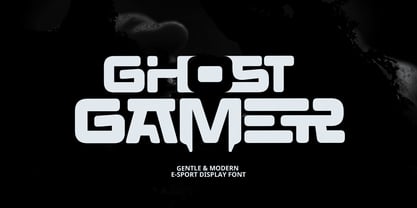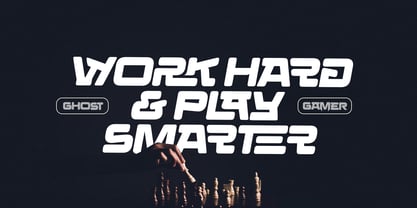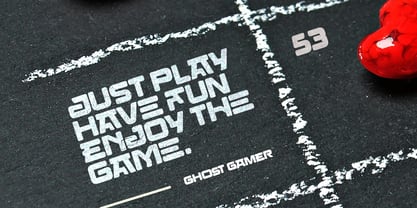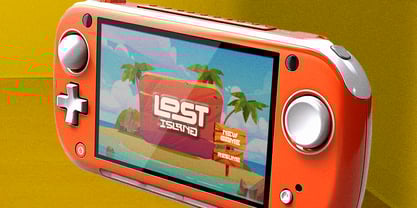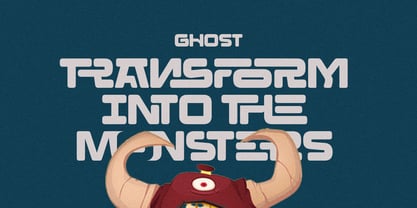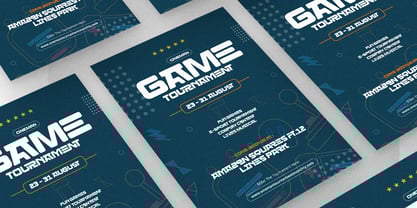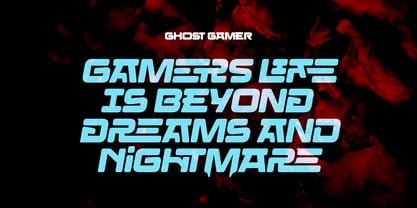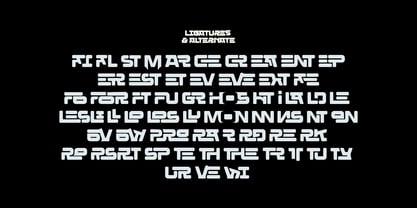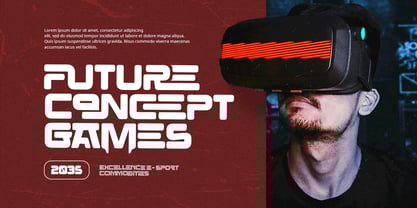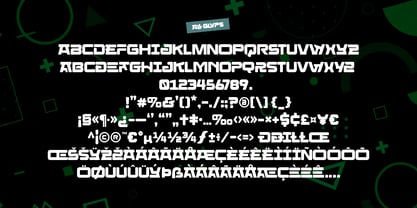
Ghost Gamer
by Grontype
The Ghost Gamer Font Family was designed by Jarnawi Saja and published by Grontype. Ghost Gamer contains 2 styles and family package options.
Ghost Gamer is a bold yet gentle modern typeface designed to make a strong visual impact with a clean, contemporary edge. Featuring solid letterforms combined with extra unique ligatures, this font delivers a distinctive personality that feels both powerful and refined. Its modern structure and creative details give Ghost Gamer a futuristic vibe, making every word stand out with character and style. Ghost Gamer Perfectly suited for headers, e-sport and gaming titles, logotypes, and branding projects, Ghost Gamer brings a confident and energetic presence to any design. Whether you’re crafting a competitive gaming identity or a striking brand mark, this font offers versatility, uniqueness, and bold expression in every glyph.